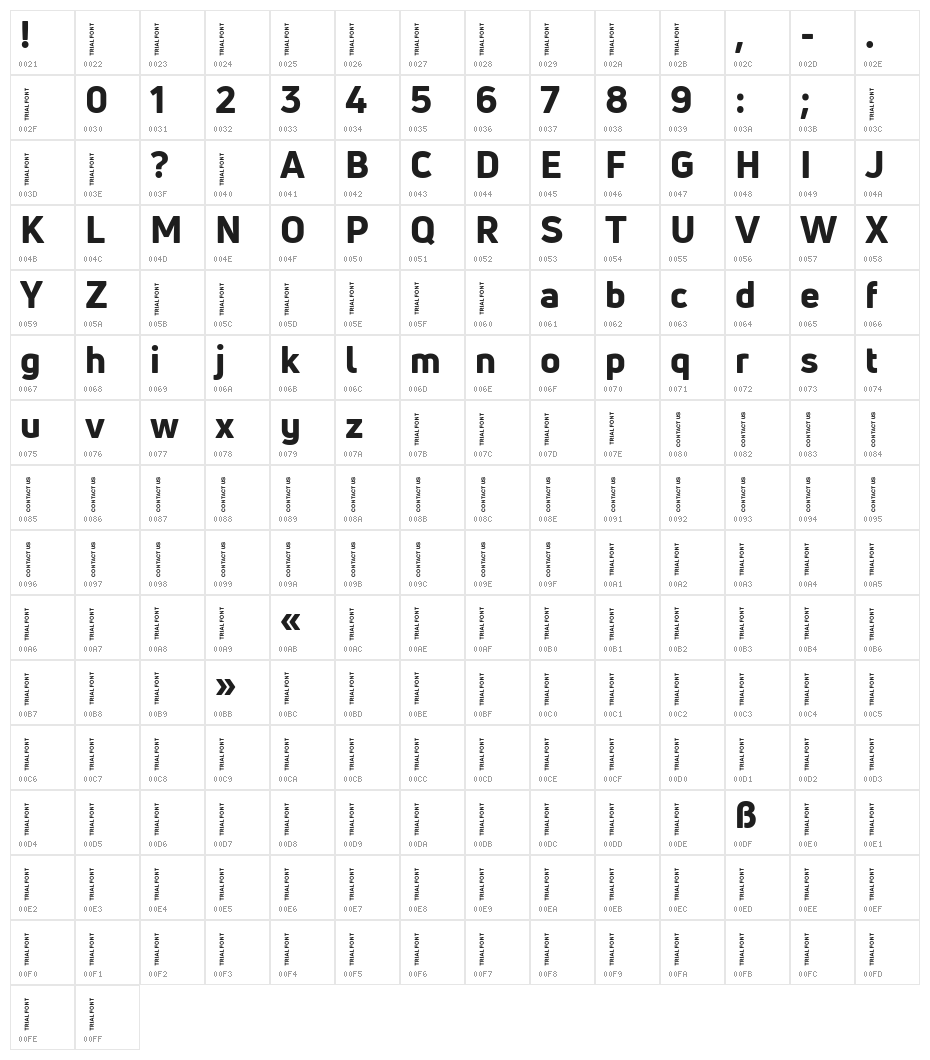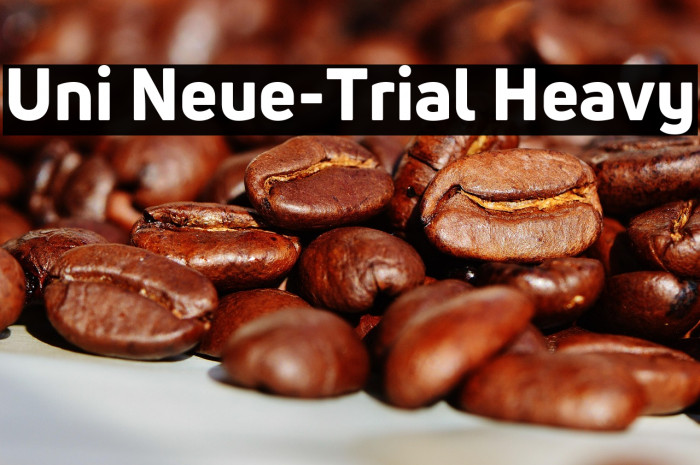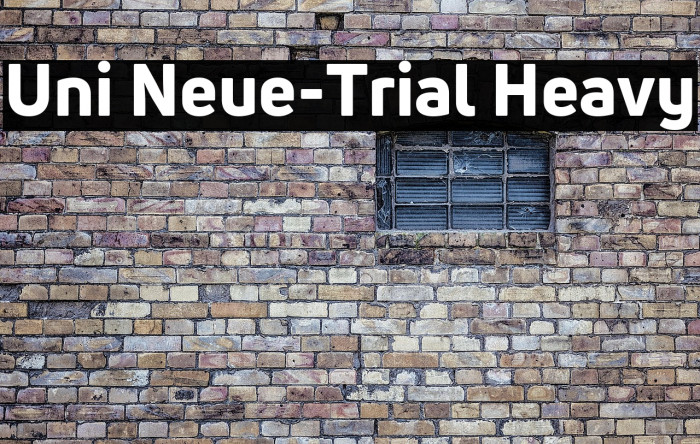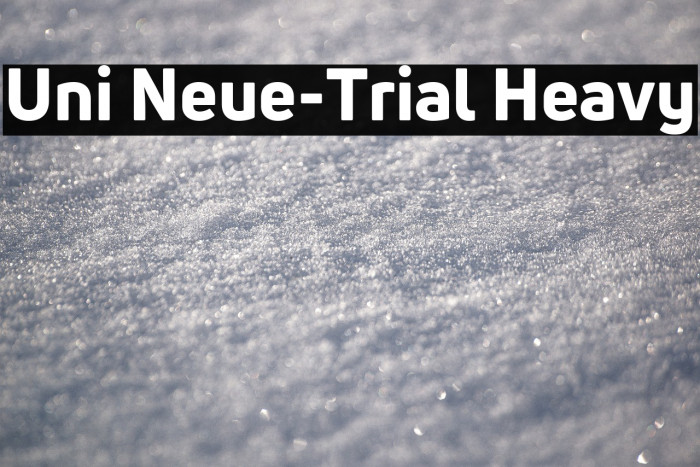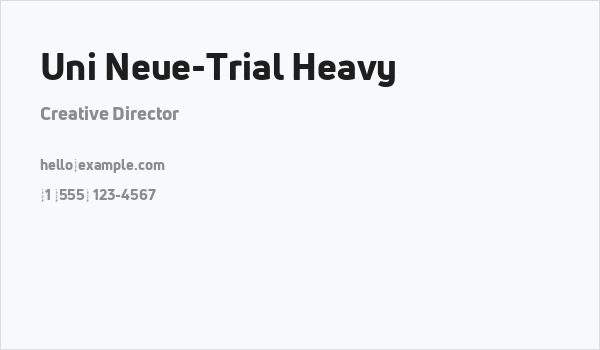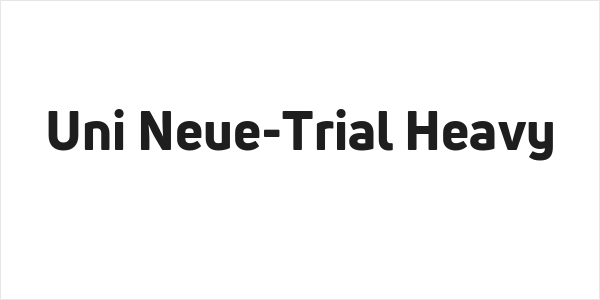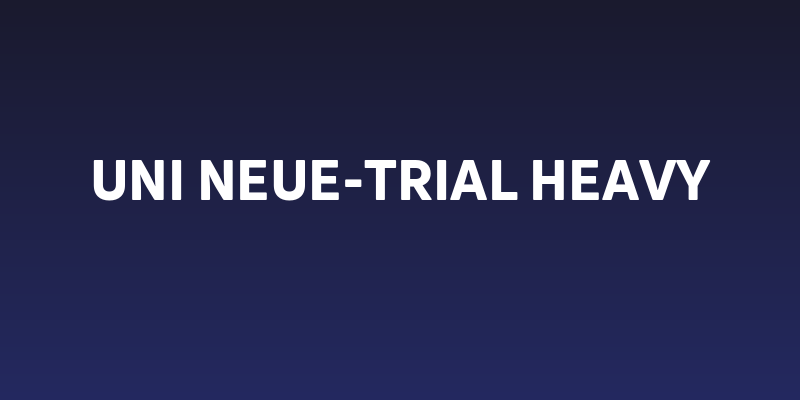
Uni Neue-Trial Heavy Font
Uni Neue-Trial Heavy Description
This typeface features a bold and modern sans-serif design, characterized by its clean lines and geometric shapes. The uppercase and lowercase letters maintain a consistent width, providing a balanced and uniform appearance. The numerals are clear and legible, making them suitable for various applications. The special characters are well-integrated, maintaining the overall aesthetic of the typeface. Its bold weight and strong presence make it ideal for attention-grabbing headlines and impactful designs.
| Use Case | Headlines, Logos, Advertising |
| Proposed Projects | Ideal for branding, advertising, headlines, and digital media projects where a strong, modern presence is required. |